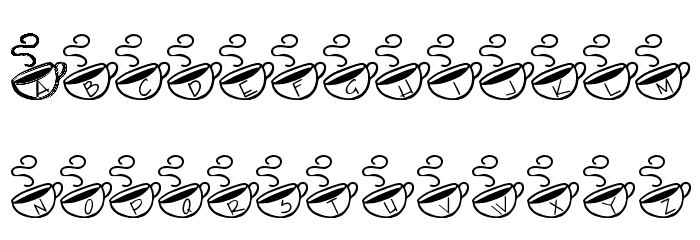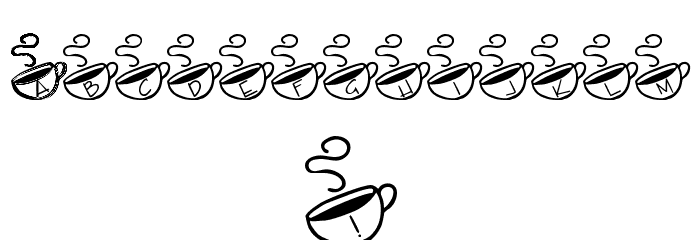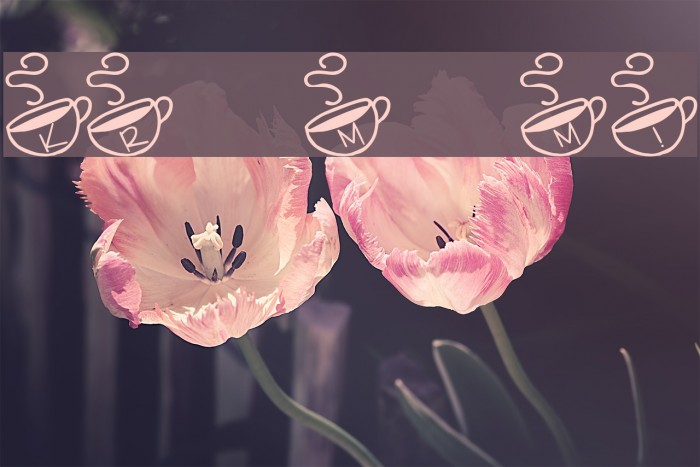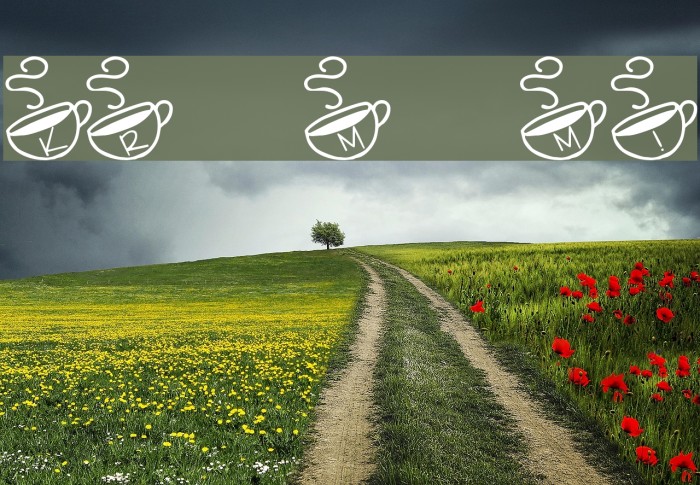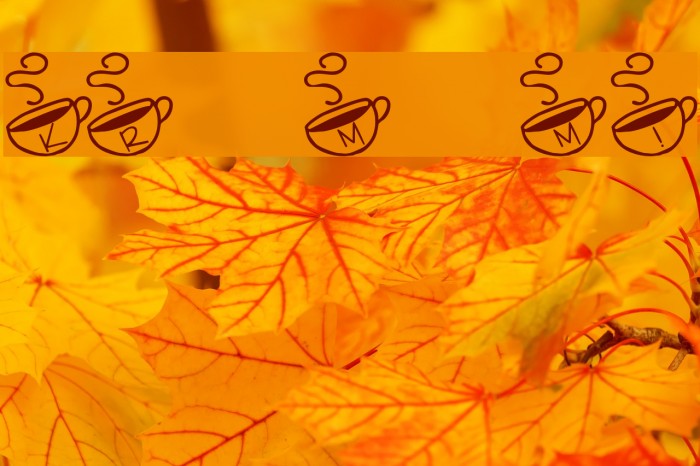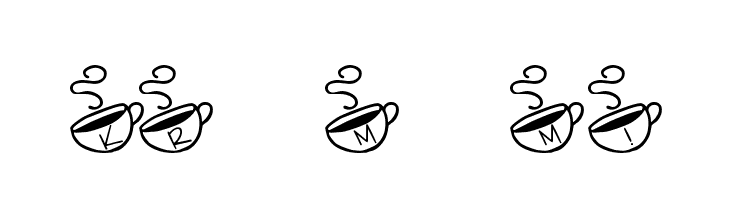
KR Morning Must! Font
This playful and whimsical font features each character inside a steaming coffee cup, adding a unique and charming touch to any design. The letters are bold and clear, making them easily readable despite the decorative elements. The steam rising from each cup adds a dynamic and lively feel, perfect for projects that aim to convey warmth and creativity. The font's overall style is both fun and inviting, making it suitable for a variety of informal and creative applications.
A whimsical font with characters inside steaming coffee cups, perfect for creative designs.
- Proposed Projects: Ideal for coffee shop branding, playful invitations, cafe menus, and any project needing a cozy, creative touch.
- Use Case: Logos, Headlines, Invitations